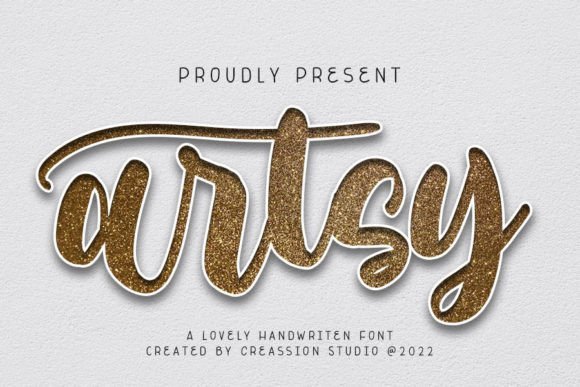
The Art of Typography: Unleashing the Beauty of Artsy Font
Have you ever been in the midst of a creative project, staring blankly at a blank page, desperate for that perfect touch to bring it to life? The struggle is real, but the solution is simpler than you think. Sometimes, all it takes is the right font to elevate your design and transport it to a whole new level of sophistication. Enter Artsy Font, the latest style letters that are taking the design world by storm.
Artsy Font is more than just a font – it’s a statement, a style, and a signature. Its unique, handwritten aesthetic is perfect for wall displays, wedding invitations, social media post logos, and any project that requires a touch of elegance and whimsy. For designers, Artsy Font is a valuable asset, offering endless possibilities for creativity and self-expression.
Artsy Font Key Features
- Font Family: Artsy Font offers a range of styles, including Regular, Bold, Italic, and Bold Italic.
- Font Size: Artsy Font is designed to be versatile and can be used at various font sizes, from 10pt to 72pt.
- Resolution: Optimized for high-resolution displays, making it ideal for use in digital applications and print materials.
- Unique Characteristics: The Artsy Font features a unique blend of modern and vintage elements, with intricate details and ornate flourishes.
Designer Review: Artsy Font
Overall, I’m impressed with the creative vibe that Artsy Font brings to the table. The unique blend of artistic flair and typographic precision makes it a great addition to any design project. ✨
Here are some aspects that I particularly appreciate:
- Exquisite lettering and ornate details that add a touch of sophistication to any design
- Highly customizable options for font weights, sizes, and colors
- Wide range of applications, from branding and advertising to editorial and digital media
However, there are a few areas where Artsy Font falls short:
- ⚠️ Limited support for certain languages and characters, which may be a concern for international designs
- ⚠️ Can be challenging to read at smaller font sizes, especially for body text
Despite these limitations, I’m thoroughly enjoying working with Artsy Font. Its creative possibilities and high-end aesthetic make it a valuable asset for any designer looking to add some artistic flair to their projects. With a bit of tweaking and attention to detail, Artsy Font can help elevate even the most mundane designs to new heights.
Artsy Font is ideal for creative projects that require a unique and eye-catching look.
Use it for:
1. Social media graphics and ads.
2. Blog posts and articles.
3. Infographics and presentations.
4. Branding and marketing materials.
Experiment with different font sizes, colors, and styles to get the most out of